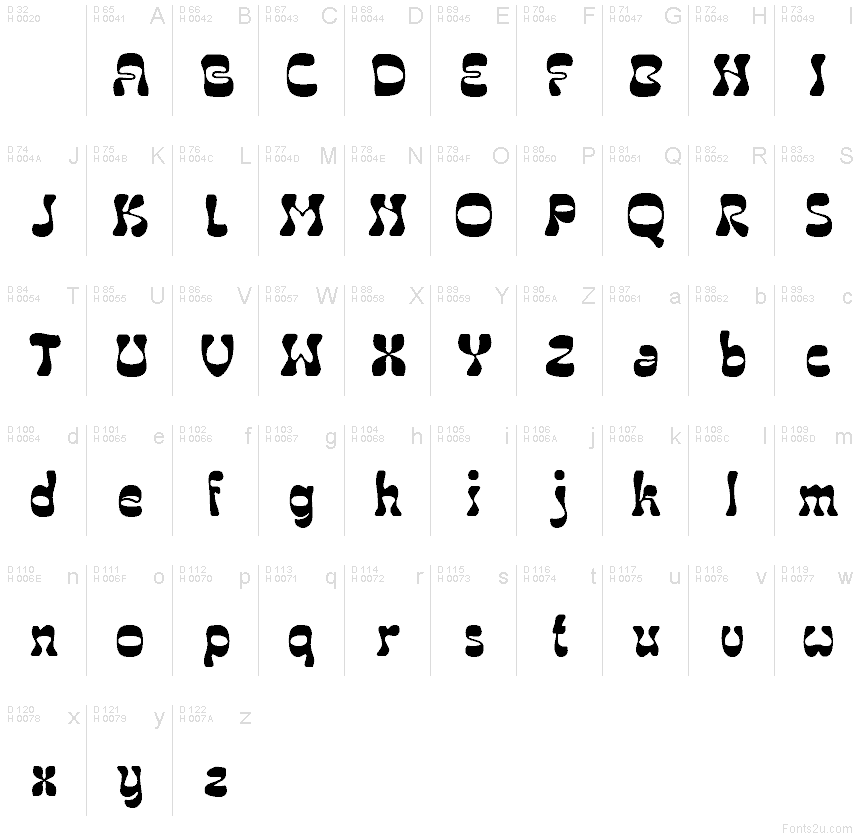
CSLamontDrawn-Regular Demo
CS Lamont Drawn font by Craft Supply Co. is a vintage display font with bold and quirky characters influenced by the 1960s style. The beautiful rounded forms give this free font a relaxed appearance with a retro-inspired touch. Defining its unique character, CS Lamont Drawn captures the eye while adding creativity to any design.